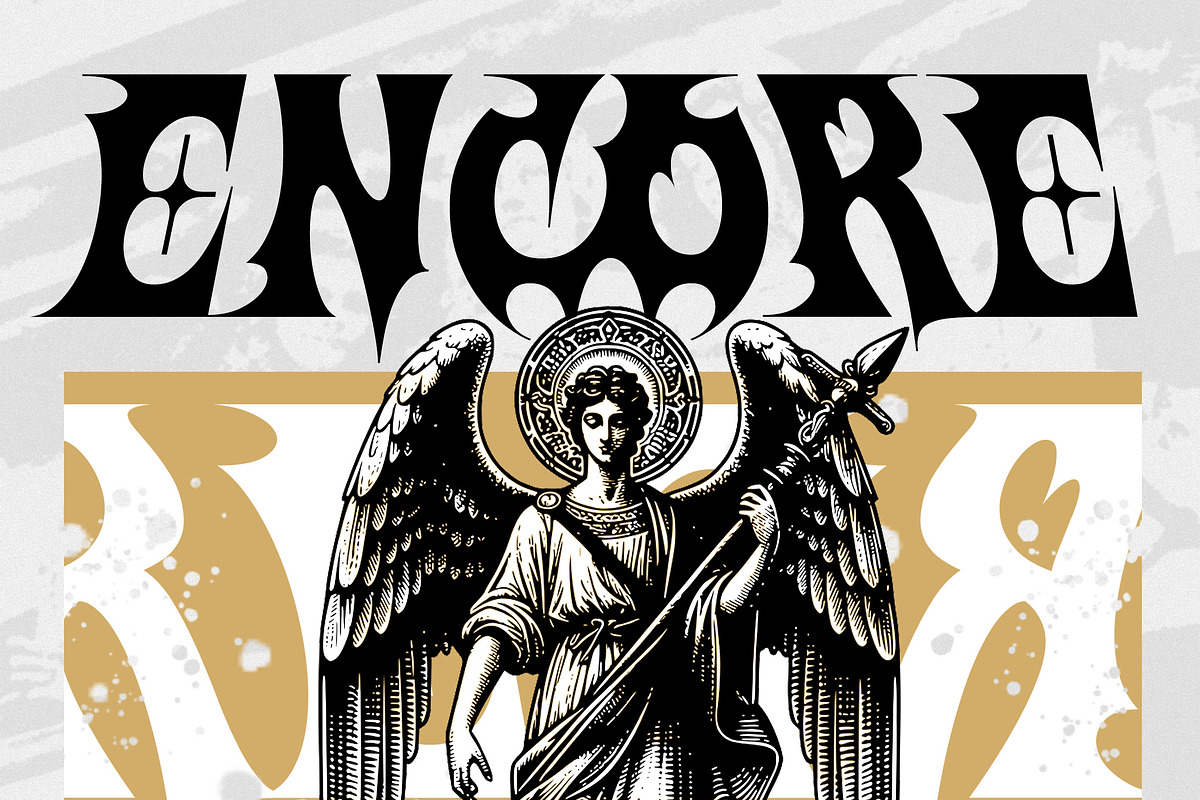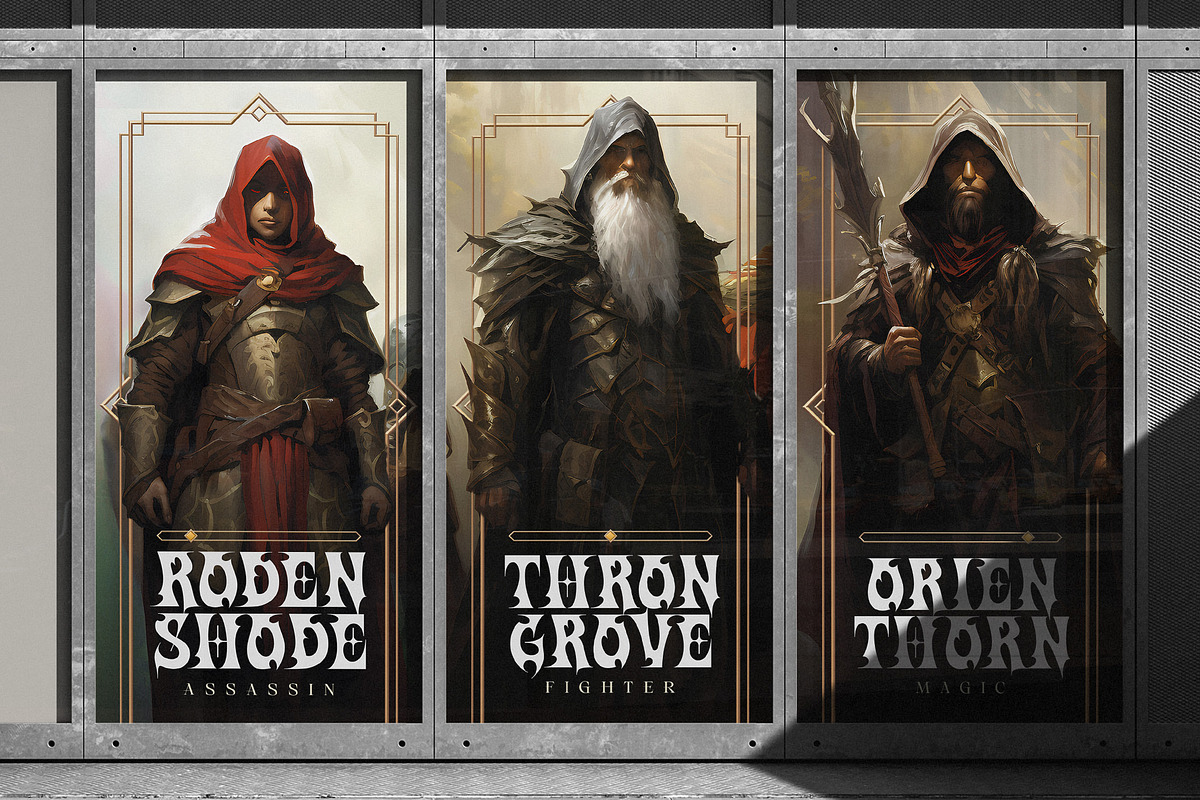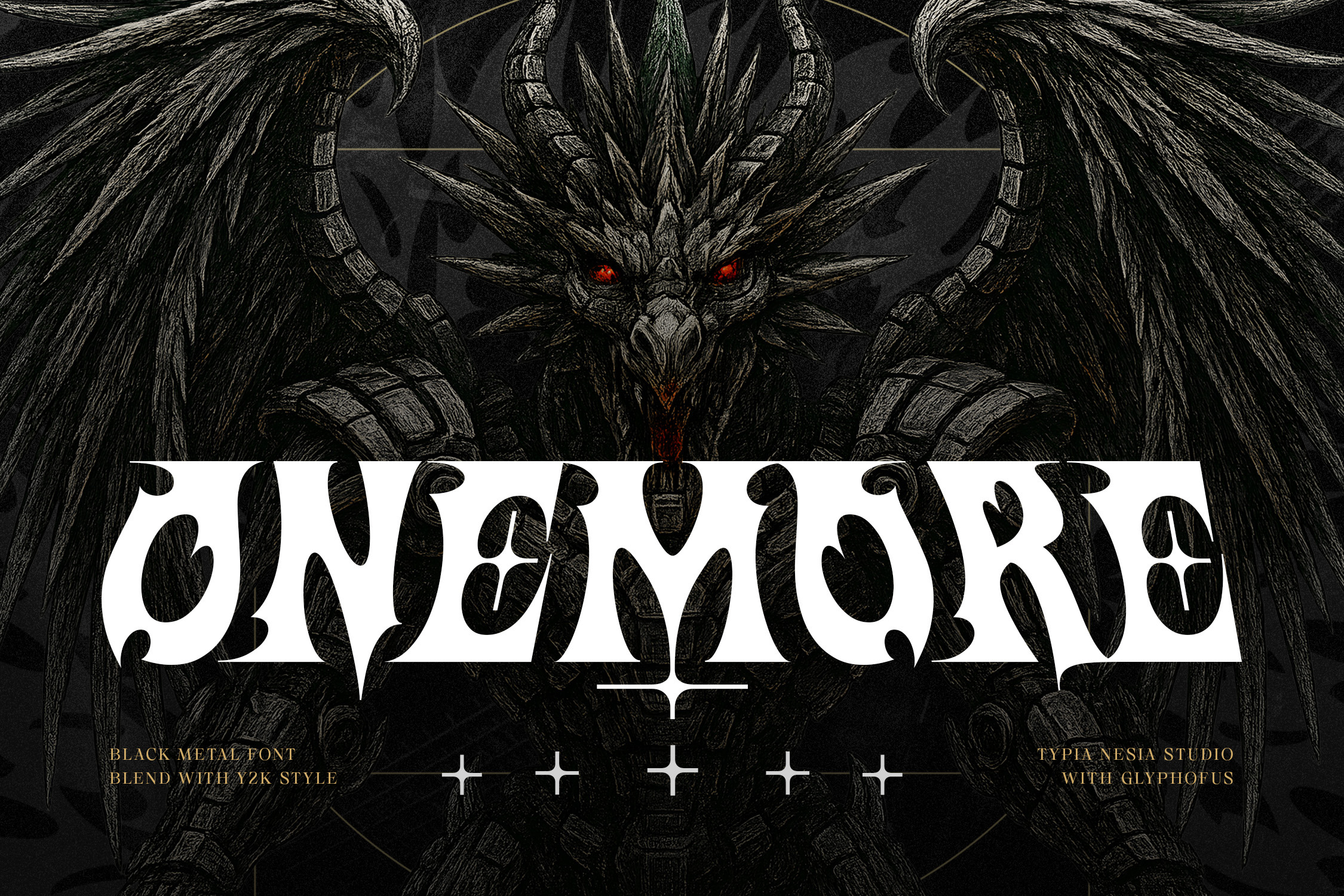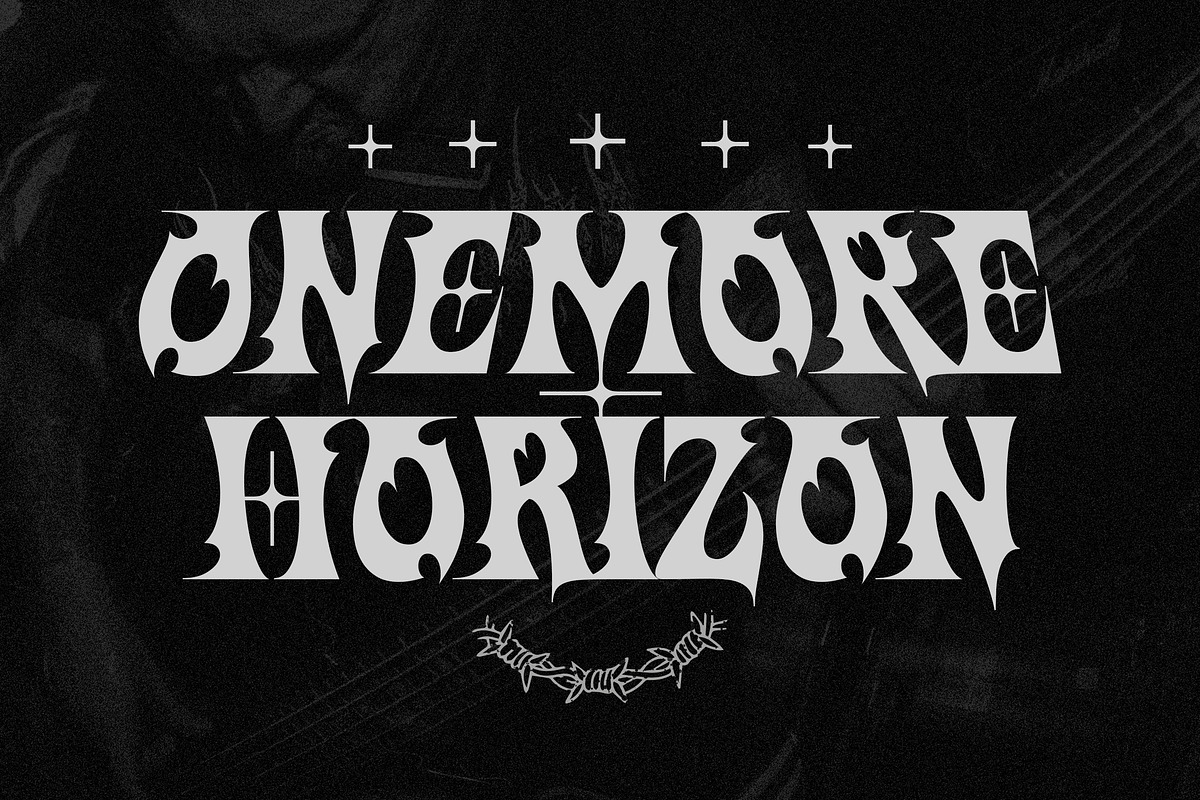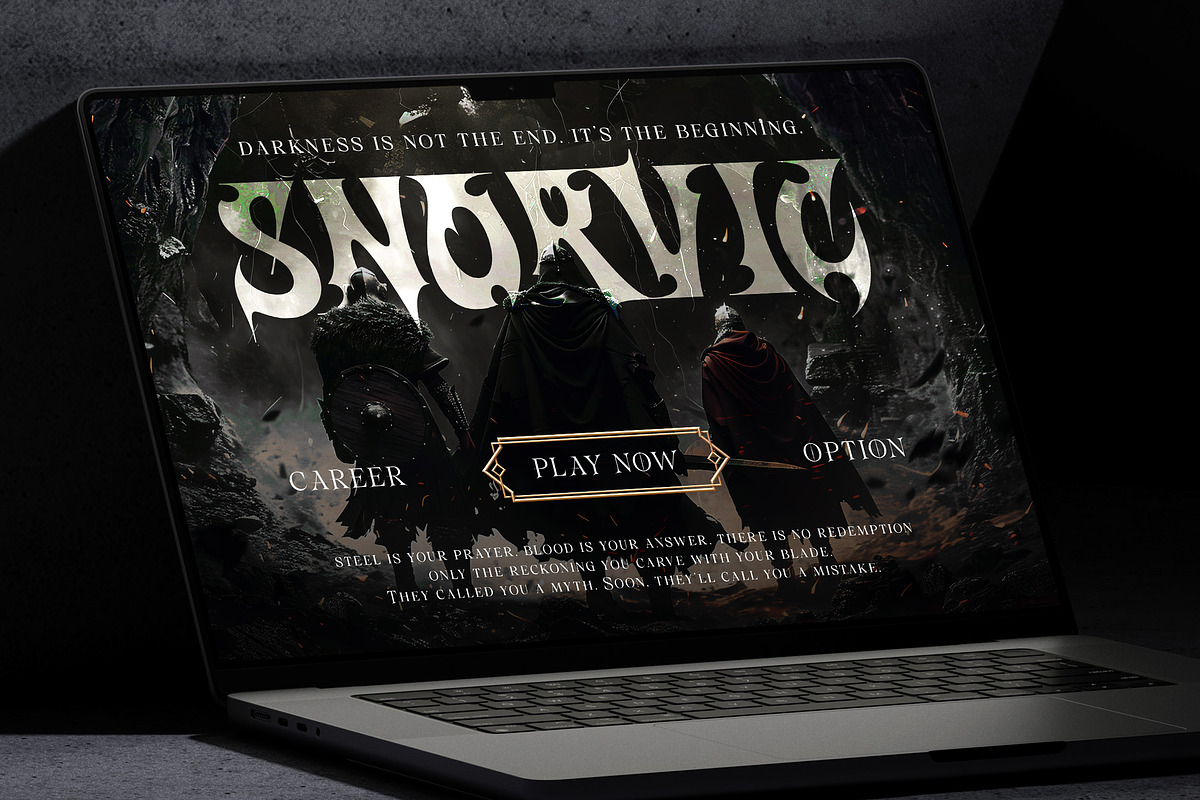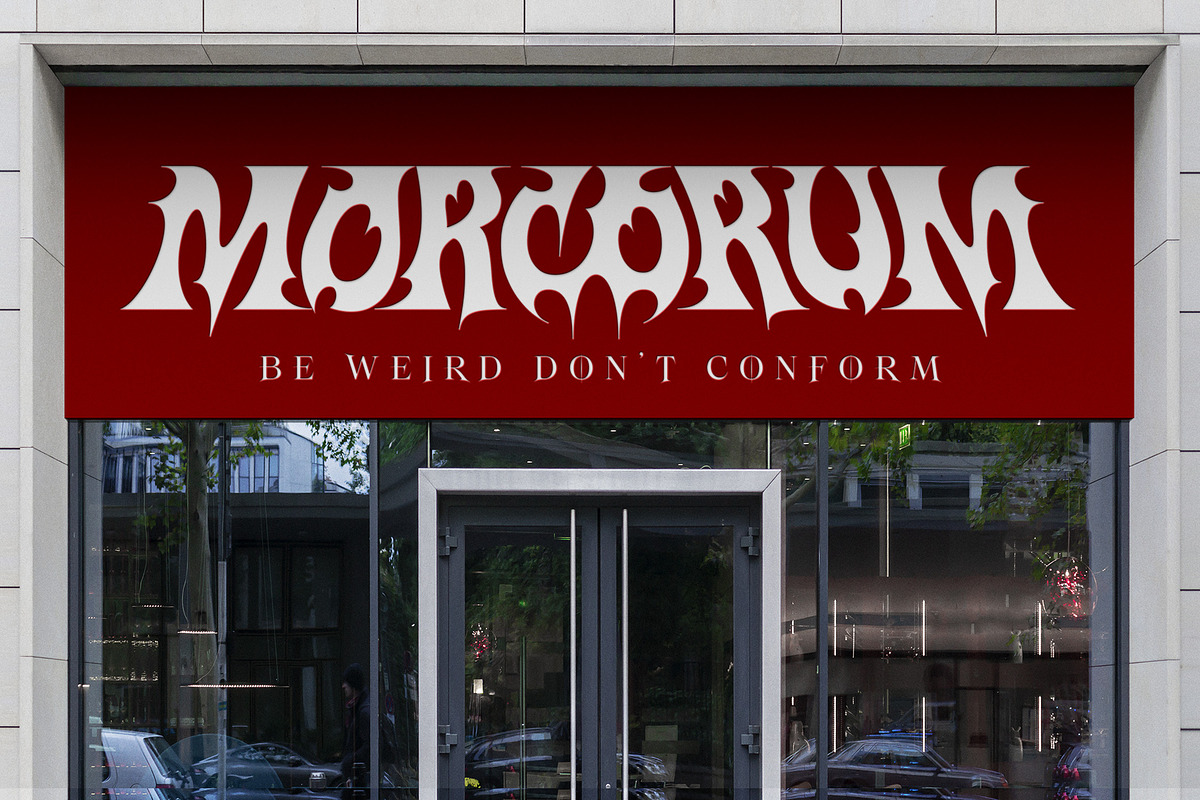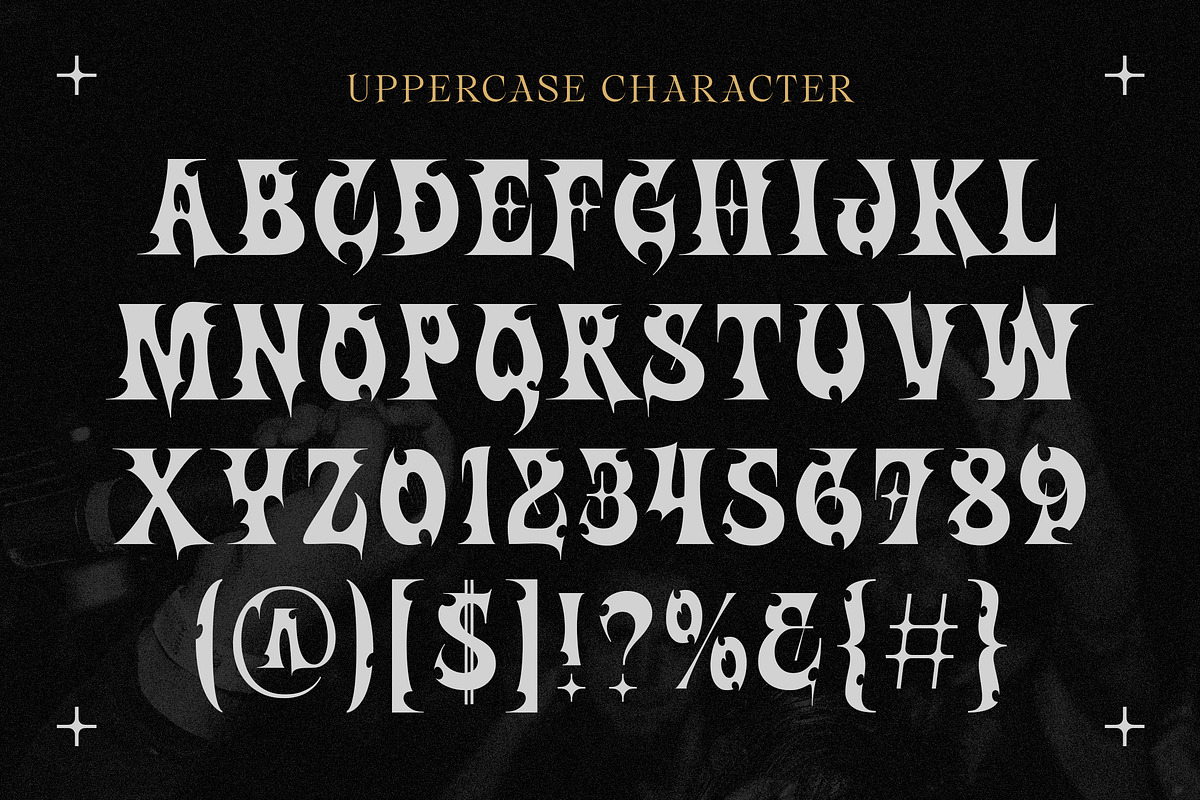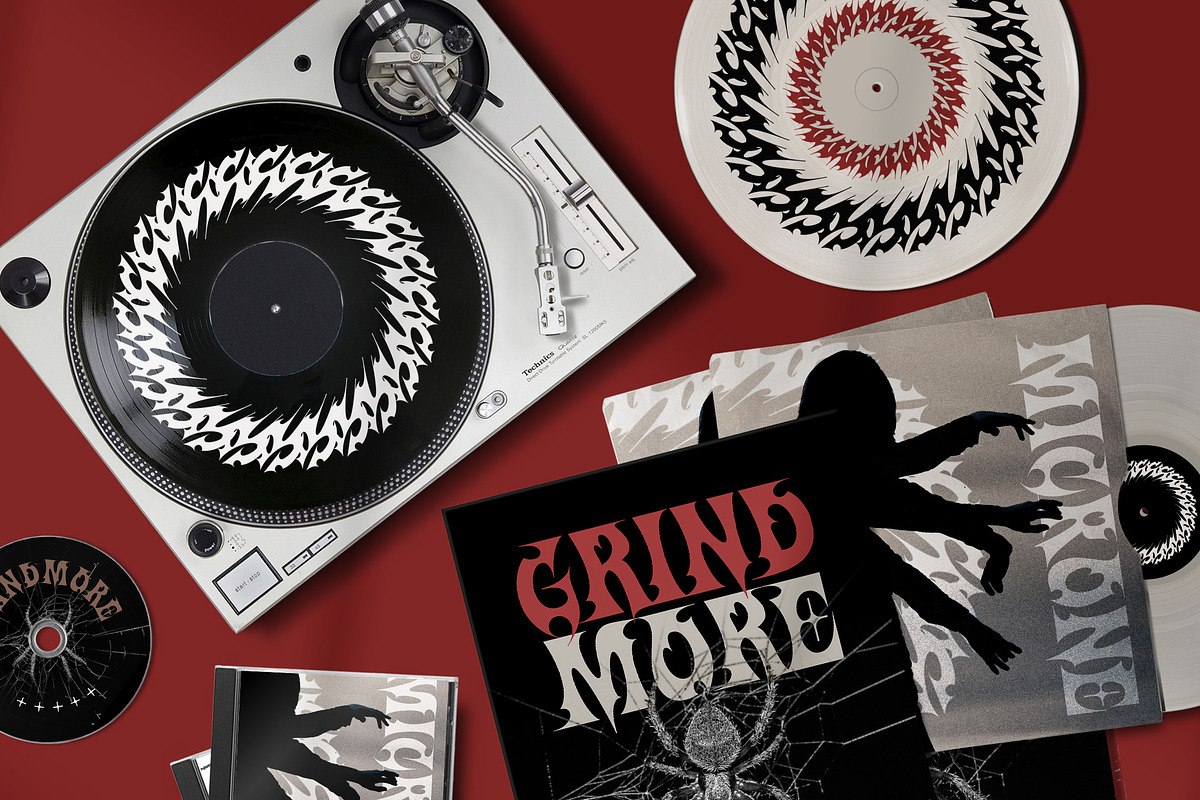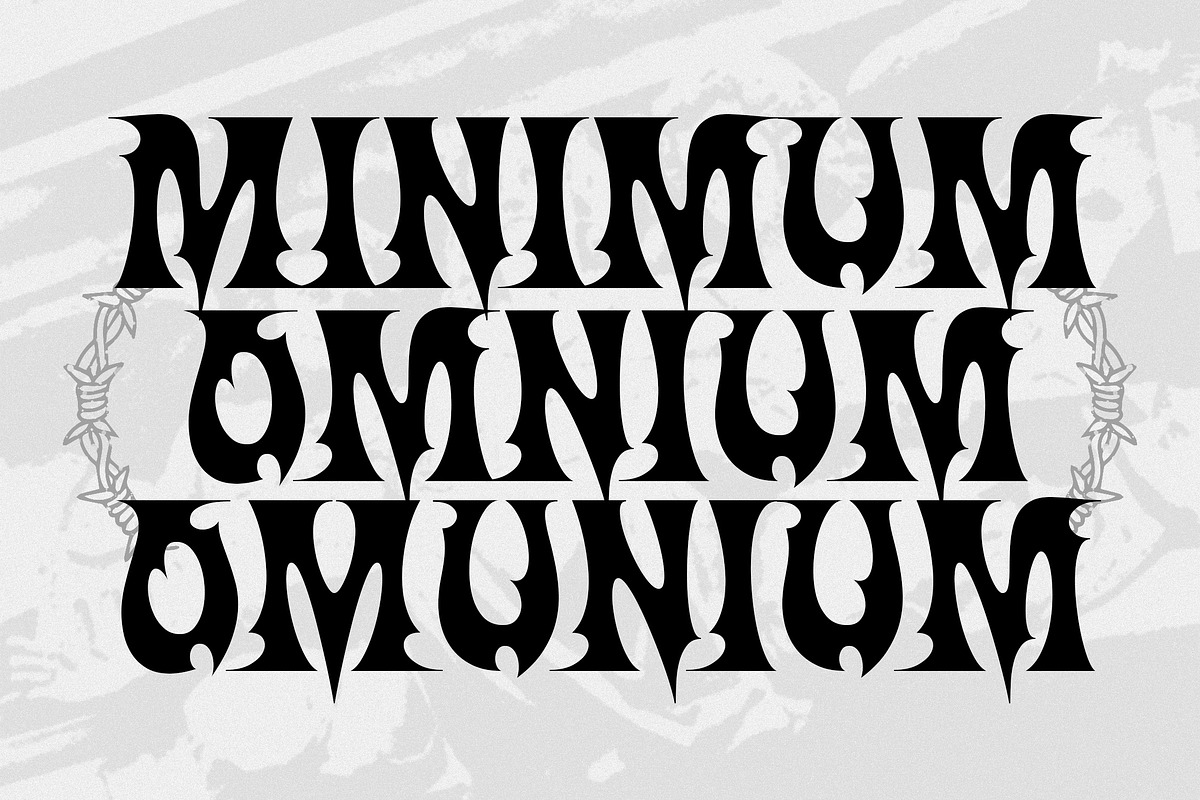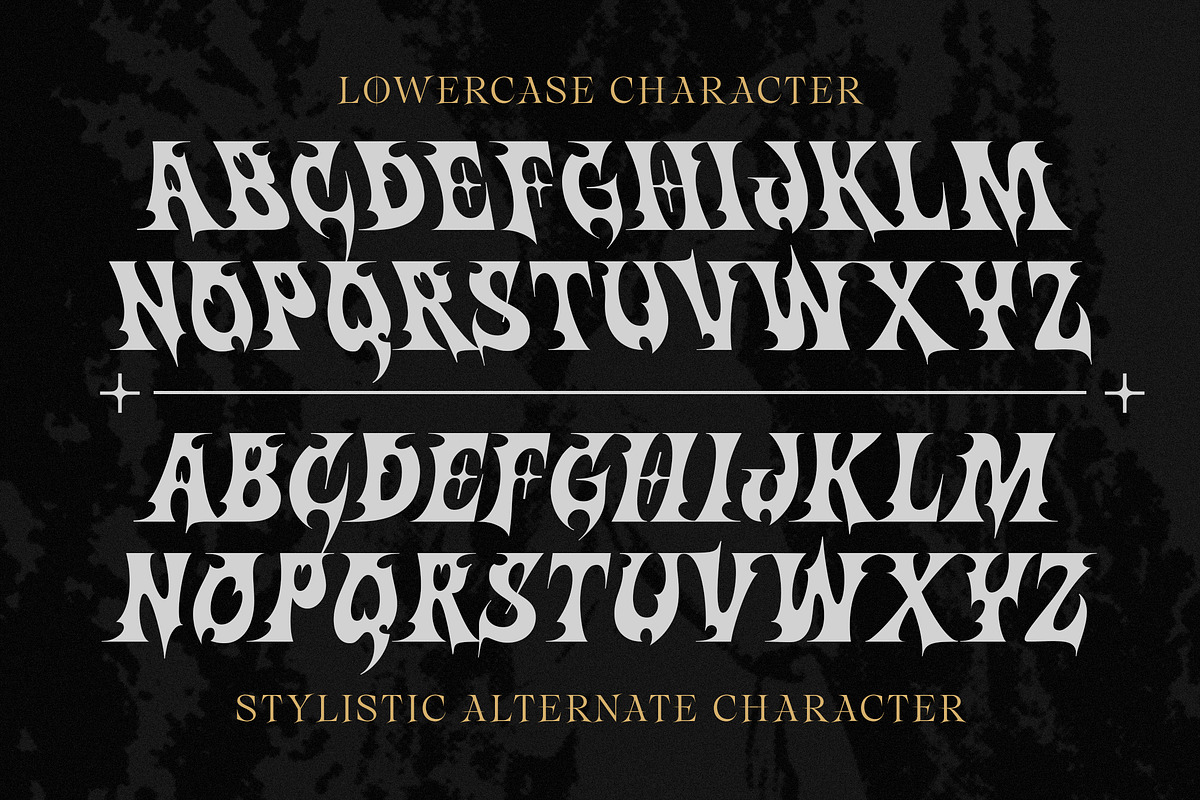
Onemore - Fantasy Game Font
Onemore - Black Metal with Y2K Flair Display Font - Dark & Grunge Designs.
Onemore is an aggressive black metal style font with a unique Y2K touch, making it the perfect choice for projects that demand a dark, edgy, and strong aesthetic. With sharp details and bold forms, this font is designed to grab attention and leave a lasting impression, perfect for music album designs (especially metal/rock genres), concert posters, alternative product branding, merchandise, advertising, logos, and any promotional material aiming to emphasize a gothic, punk, or grunge vibe. This font offers various alternates and ligatures, allowing creative flexibility to produce truly original and expressive looks.